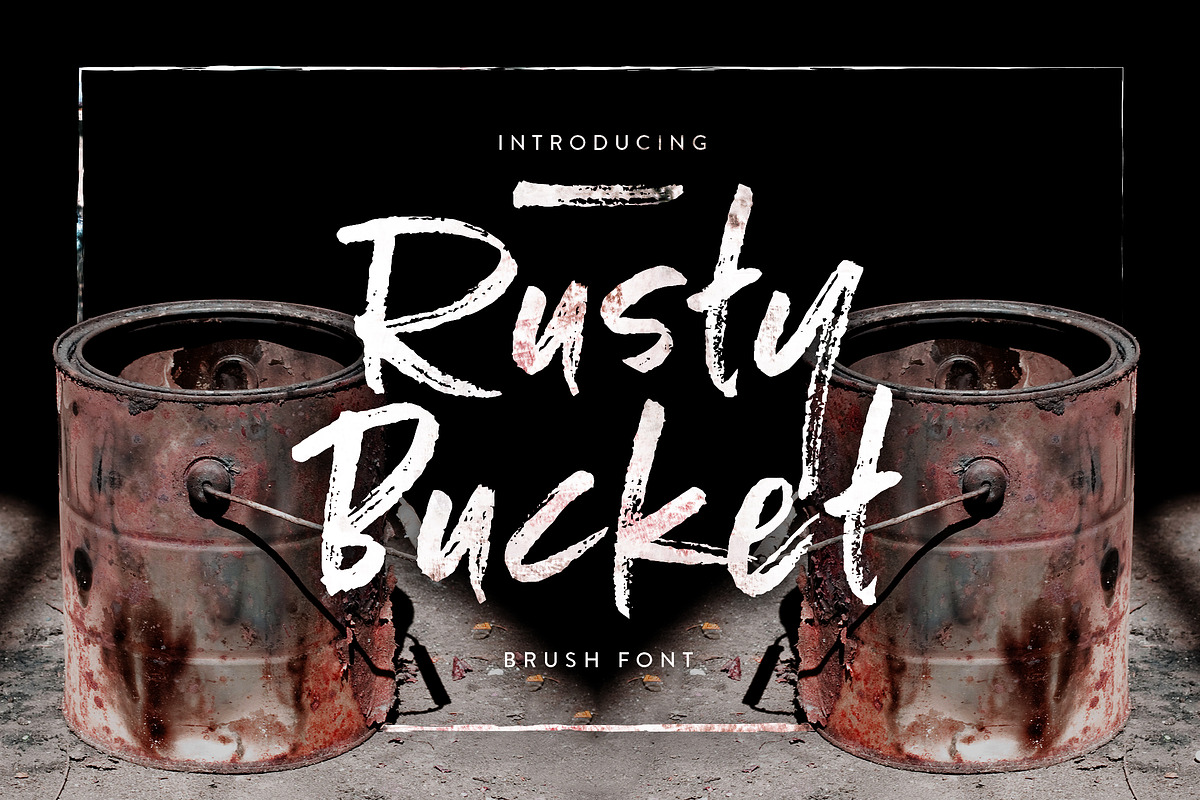
Rusty Bucket
Rusty Bucket by Font Bundles is a font selected for branding, posters, packaging, typography.
Why Rusty Bucket is worth a look
Rusty Bucket by Font Bundles fits naturally into Branding, posters, packaging, typography.